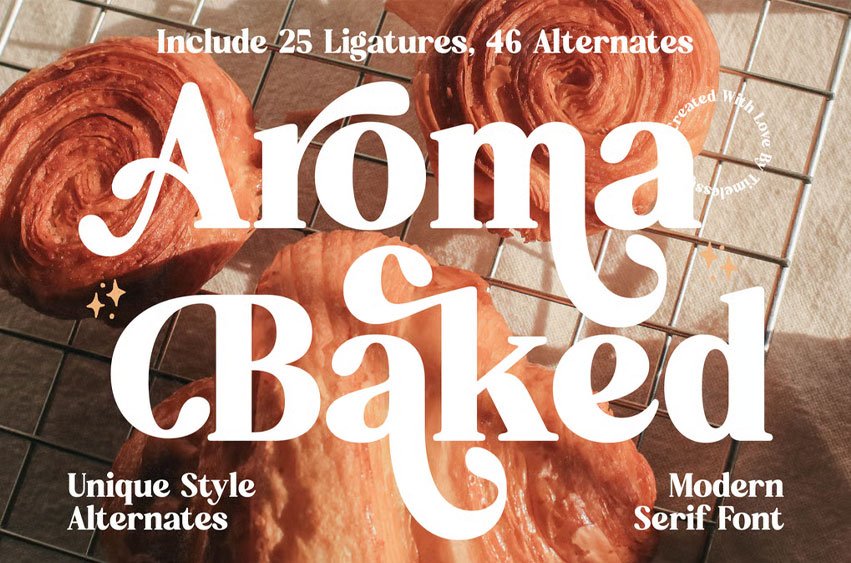
Aroma Baked Font
Aroma Baked Font is a modern serif font with a soft, bold personality and a touch of retro charm. Featuring 25 ligatures and 46 alternates, this typeface combines playful curves with elegant form, making it perfect, packaging and editorial designs.
With its warm and inviting aesthetic, Aroma Baked brings a delicious balance of creativity and sophistication to every project.